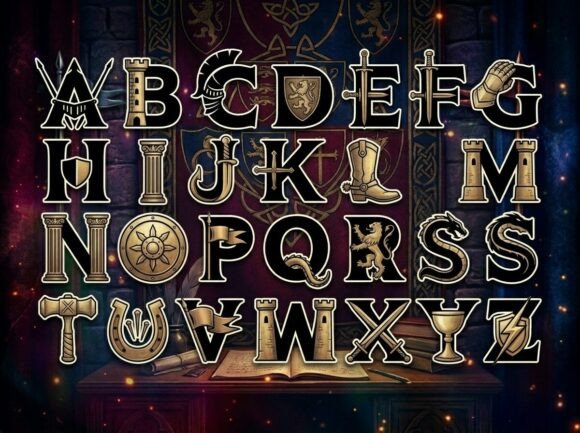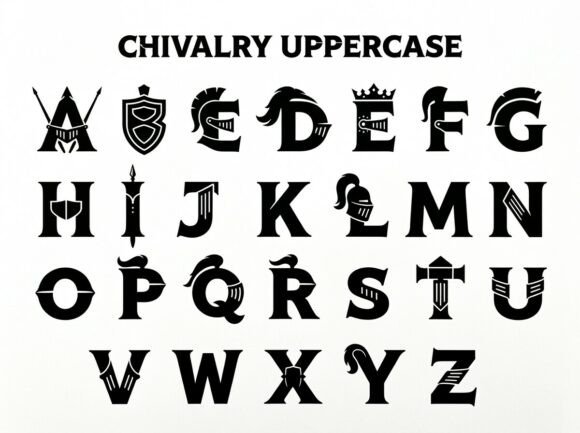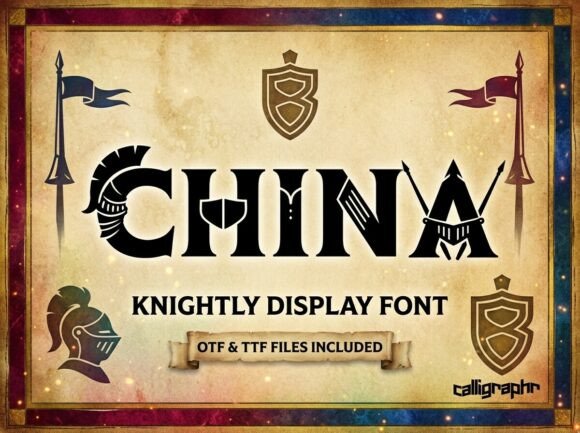
Unleash Legendary Valor with China Font
Have you ever been in the midst of a design project, and suddenly, you’re struck by a creative block? You’re not alone! I recall working on a fantasy novel cover, desperately searching for a font that could capture the essence of medieval chivalry. That’s when I stumbled upon China, a premium knightly display font that instantly transported me to a world of legendary valor and ancient power.
A Legendary Quest Begins
China Font is a majestic typeface that embodies the noble spirit of chivalry. Its bold, monumental letterforms are uniquely integrated with medieval armor motifs, including Spartan-style helms, knightly shields, and crossed spears. This exceptional font is perfect for epic gaming titles, historical novel covers, cinematic movie posters, and heraldic branding. Whether you’re designing for a fantasy underworld or a royal heritage project, China delivers a sense of grandeur and valor to every headline.
- ✅ Unique blend of medieval armor motifs and bold letterforms
- ✅ Perfect for designs requiring a sense of ancient power and legendary valor
- ✅ Exceptional architectural precision and attention to detail
- ✅ Highly versatile and adaptable to various design projects
- ⚠️ Limited use of subtle font variations, which may not be ideal for body text
- ⚠️ Some users may find the font too bold or overpowering for certain designs
- Experiment with the font’s OpenType features, such as stylistic alternates, to add visual interest to your design.
- Explore the font’s glyphs and OpenType features, such as medieval armor motifs, to add depth to your design.
The China Font was inspired by the legendary tales of medieval knights and their unwavering dedication to honor and valor. The font’s designer aimed to capture the essence of chivalry and create a typeface that would evoke a sense of ancient power and grandeur. By combining bold letterforms with medieval armor motifs, the designer has created a truly unique and exceptional font.
| What type of projects is China Font best suited for? | China Font is perfect for epic gaming titles, historical novel covers, cinematic movie posters, and heraldic branding. |
| Can I use China Font for body text? | While China Font is primarily designed for display purposes, it can be used for short paragraphs of body text. However, its bold nature may not be ideal for extended reading. |
| Is China Font compatible with OpenType features? | Yes, China Font supports OpenType features, including stylistic alternates and glyphs. |